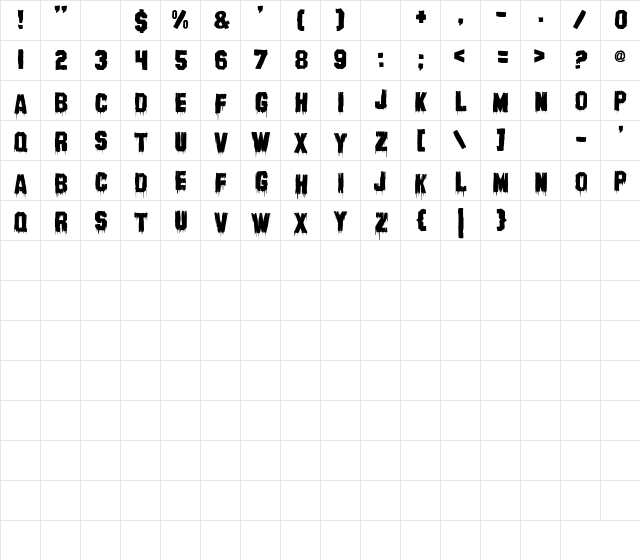
-banhart- ver : 004 Regular Free Font
-banhart- ver : 004 Regular
Version: 004
Foundry: Eric Wiryanata
Designer: Eric Wiryanata
Design Context for -banhart- ver : 004
-banhart- ver : 004 is a composed and adaptable typeface that performs quietly and consistently across a wide range of design contexts.